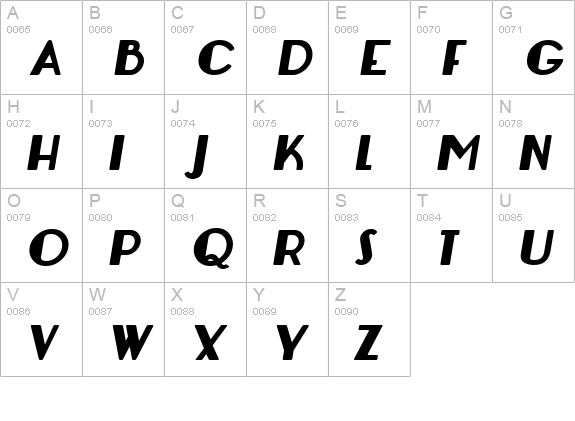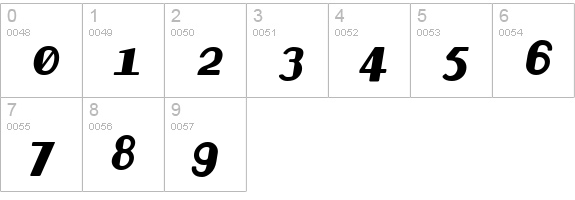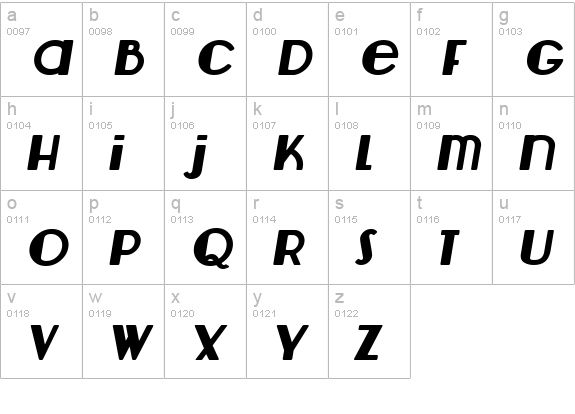
Lemondrop Italic Font Details
Lemondrop Italic is a distinctive, italic variant in the Lemondrop typeface family \xE2\x80\x94 well suited to design and typography projects.
Lemondrop Italic font is a stunning and elegant typeface that effortlessly combines modern sophistication with a touch of classic charm. Its sleek and slanted letterforms exude a sense of grace and refinement, making it perfect for creating eye-catching headlines, logos, and branding materials. This exquisite font features delicate curves, subtle flourishes, and a slight italic slant that adds a sense of movement and energy to any design. Lemondrop Italic font captures attention with its unique and captivating personality, making it a versatile choice for both print and digital projects. But what truly sets Lemondrop Italic font apart is its availability as a free download at FontsMarket.com. Yes, you read that right - this exceptional typeface can be yours without spending a dime. FontsMarket.com, a leading platform for font enthusiasts, offers this font for free, allowing designers, creatives, and typophiles to access and enjoy its beauty without any cost. Whether you're a professional designer looking for a versatile and elegant font, or a hobbyist searching for a new creative tool, Lemondrop Italic font is the perfect choice. Its free availability at FontsMarket.com makes it accessible to all, ensuring that anyone can add a touch of sophistication to their designs without breaking the bank. So why wait? Head over to FontsMarket.com today and download Lemondrop Italic font for free. Experience the beauty and versatility of this exquisite typeface and unlock a world of design possibilities. Whether it's for personal or commercial use, Lemondrop Italic font is here to elevate your designs and make a lasting impression.